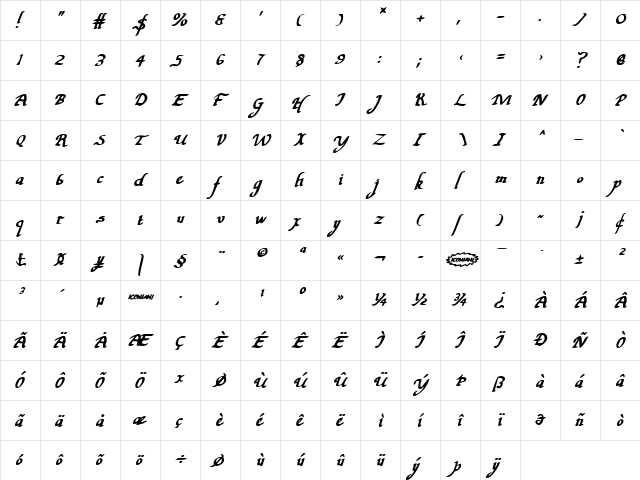
Valley Forge Bold Italic Bold Italic
Design Context for Valley Forge Bold Italic Typeface
Valley Forge Bold Italic is a composed and adaptable typeface that performs quietly and consistently across a wide range of design contexts. The slanted form adds forward momentum and visual energy. Its bold stroke weight gives it real presence on the page.